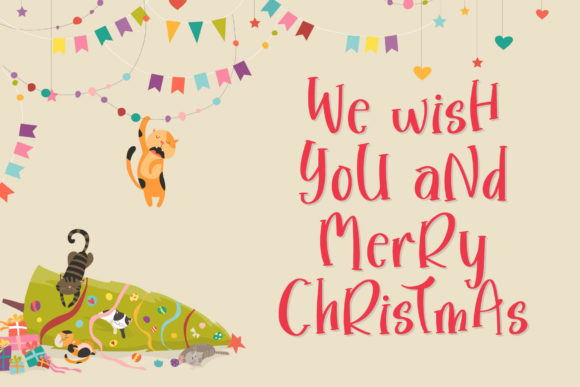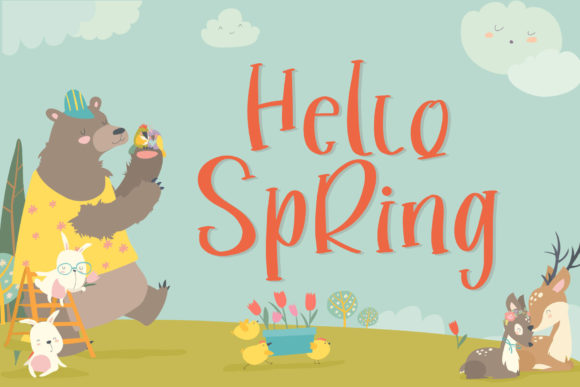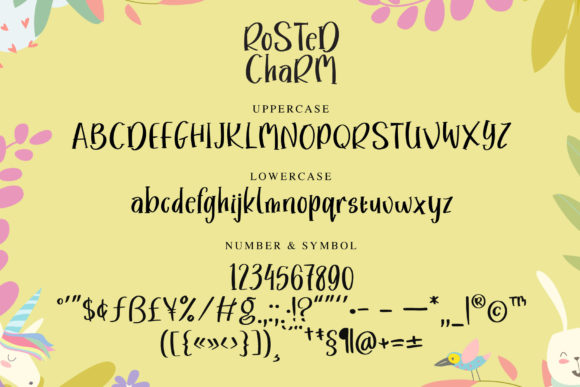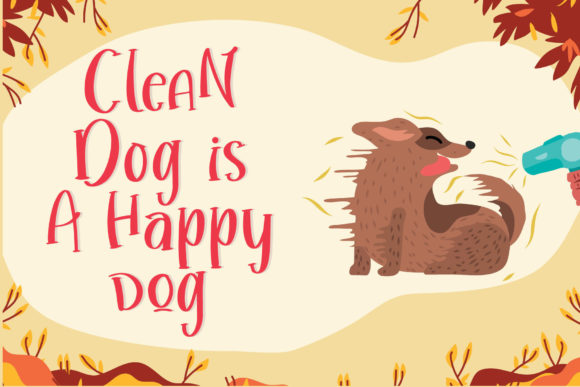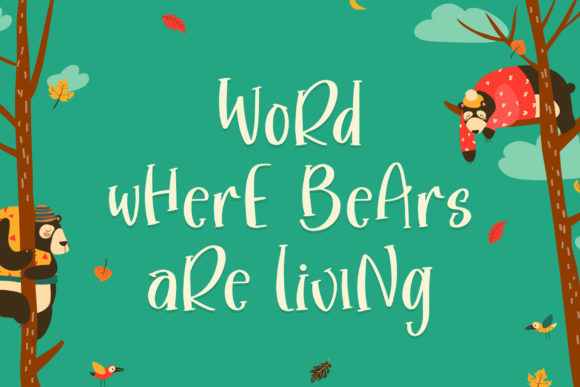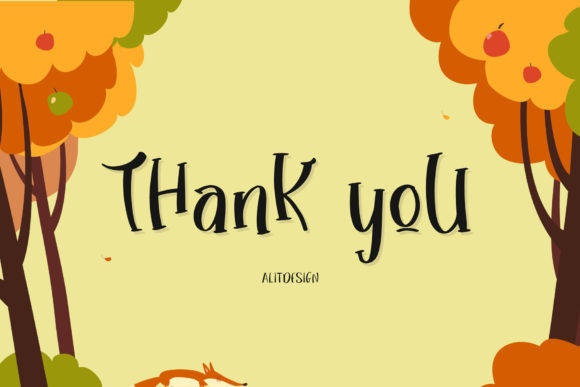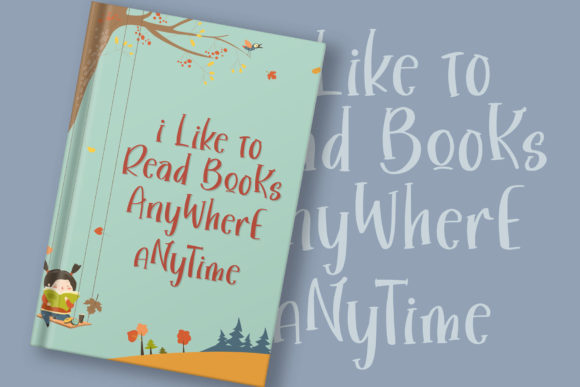
Rosted Charm Font
About Rosted Charm Font
Rosted Charm isa playful and quirky handwritten font. Whimsical and joyful, this font will brighten up each of your designs. Add it confidently to your projects, and you will love the results.